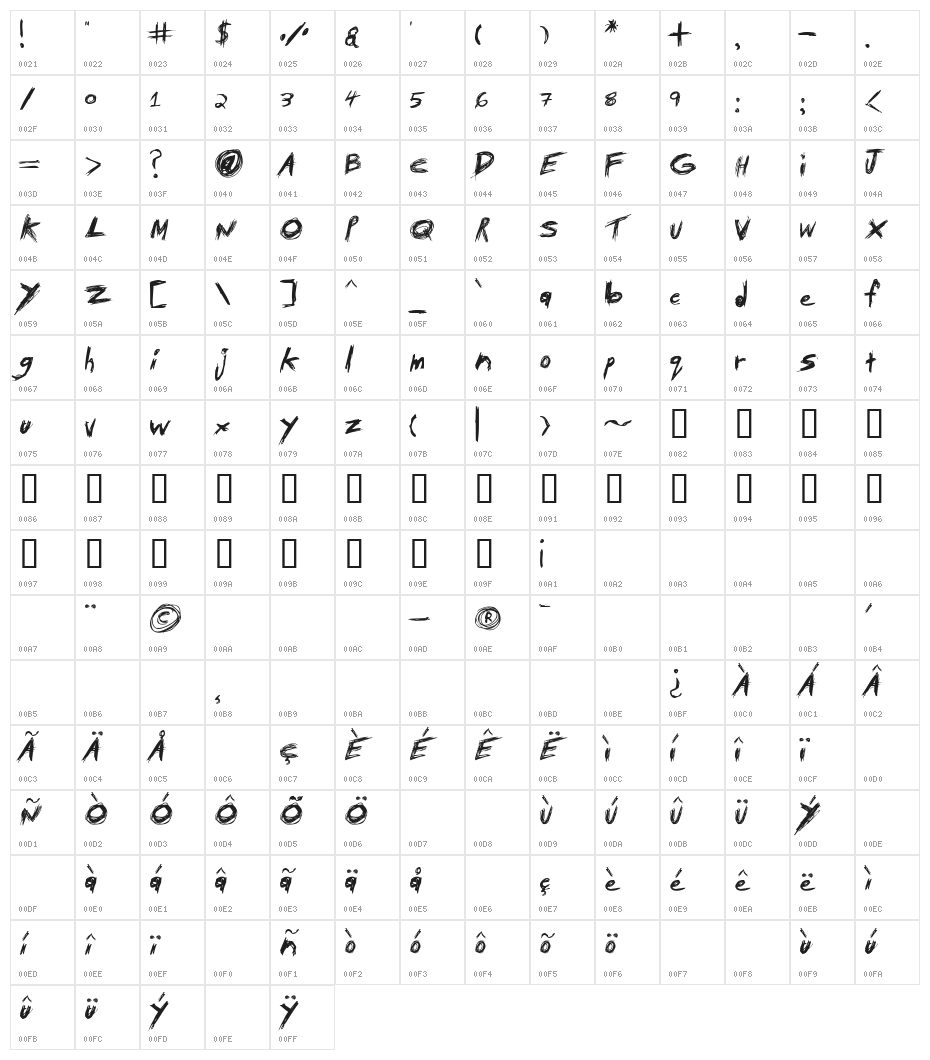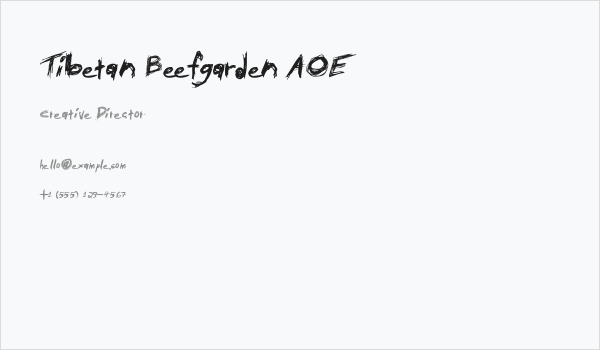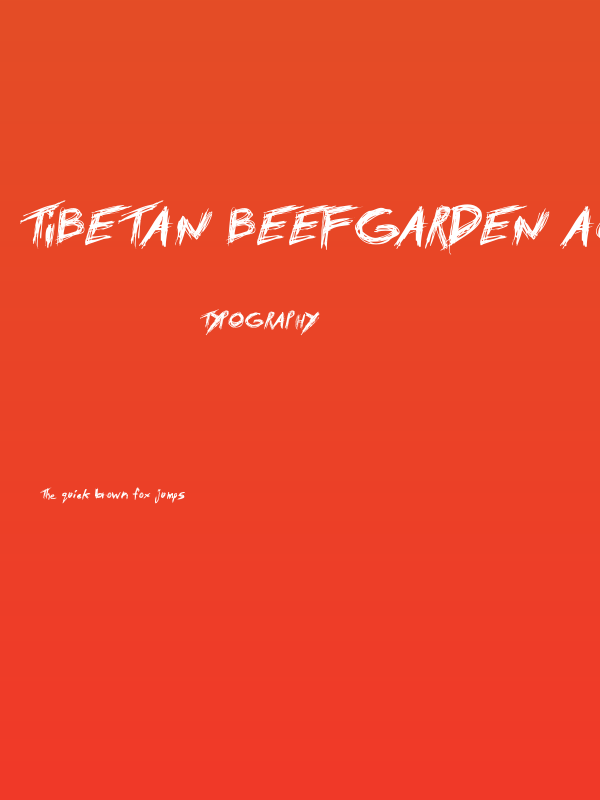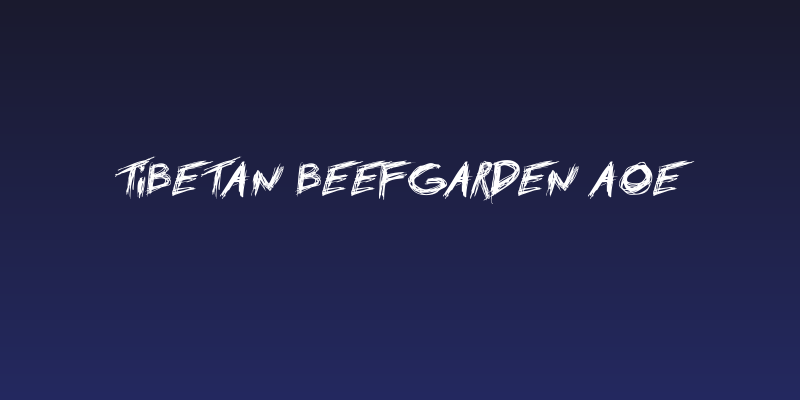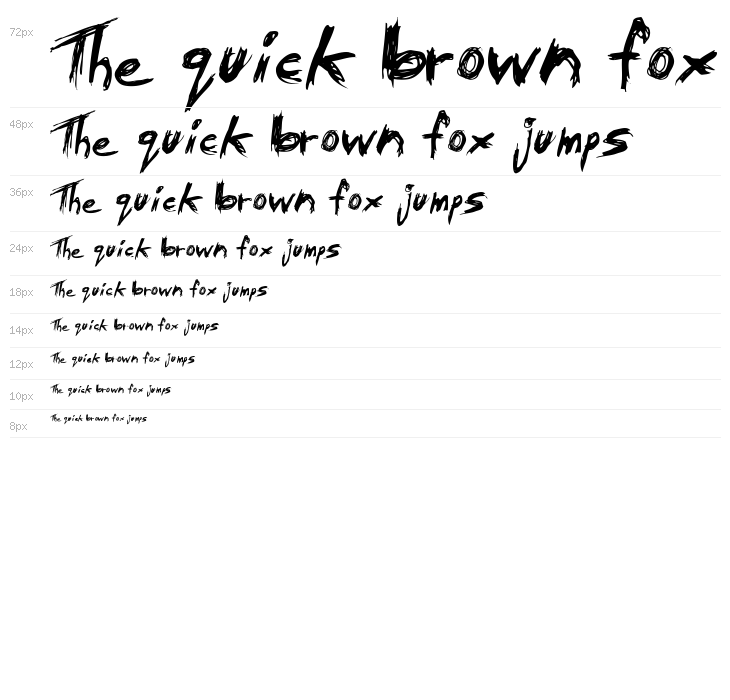
Tibetan Beefgarden AOE Font
Tibetan Beefgarden AOE Description
This font features a bold, expressive style with a hand-drawn, brush-like appearance. The characters are irregular and dynamic, giving an impression of movement and energy. The strokes are uneven, with some parts appearing thicker and others thinner, creating a high contrast that adds to its dramatic effect. The overall look is edgy and artistic, suitable for projects that require a strong visual impact. The uppercase and lowercase letters maintain a consistent style, while the numerals and special characters complement the overall design.
Proposed ProjectsIdeal for album covers, posters, graffiti art, and any project needing a bold, artistic touch.